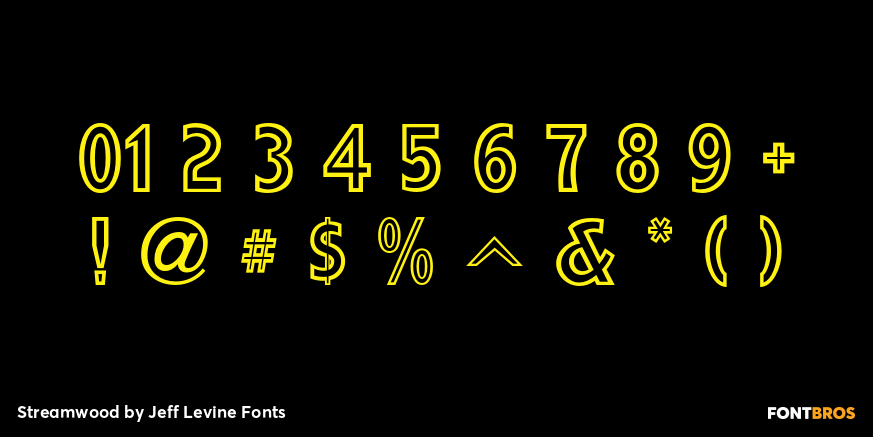
Streamwood
Streamwood JNL is an outline sans wood type re-drawn from vintage source material. The design bears strong resemblance to Woodlawn JNL; but is a bit narrower and has a much different set of numbers as well as a more stylized letter 'Q'.